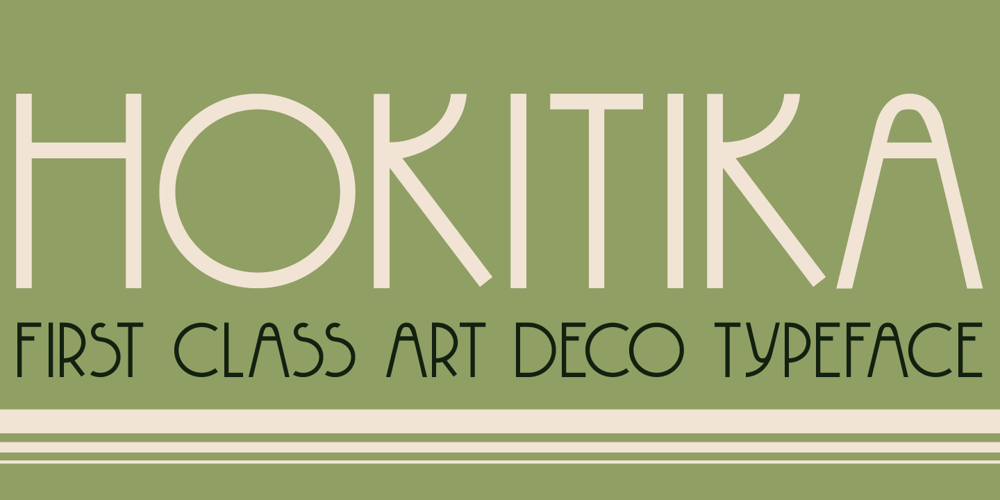
Hokitika Font Family was designed by David Kerkhoff and published by Hanoded. Hokitika contains 1 styles and family package options. Hokitika is a township in the West Coast Region of New Zealand’s South Island. It has some amazing beaches, stunning scenery, but above all, it has Pounamu (greenstone or jade). This is THE place to buy a beautiful Maori greenstone pendant. Don’t buy it for yourself, as it is supposed to bring bad luck. Hokitika font is a tall and thin all caps Art Deco typeface. It is classy, elegant and very legible. Comes with a full range of diacritics.